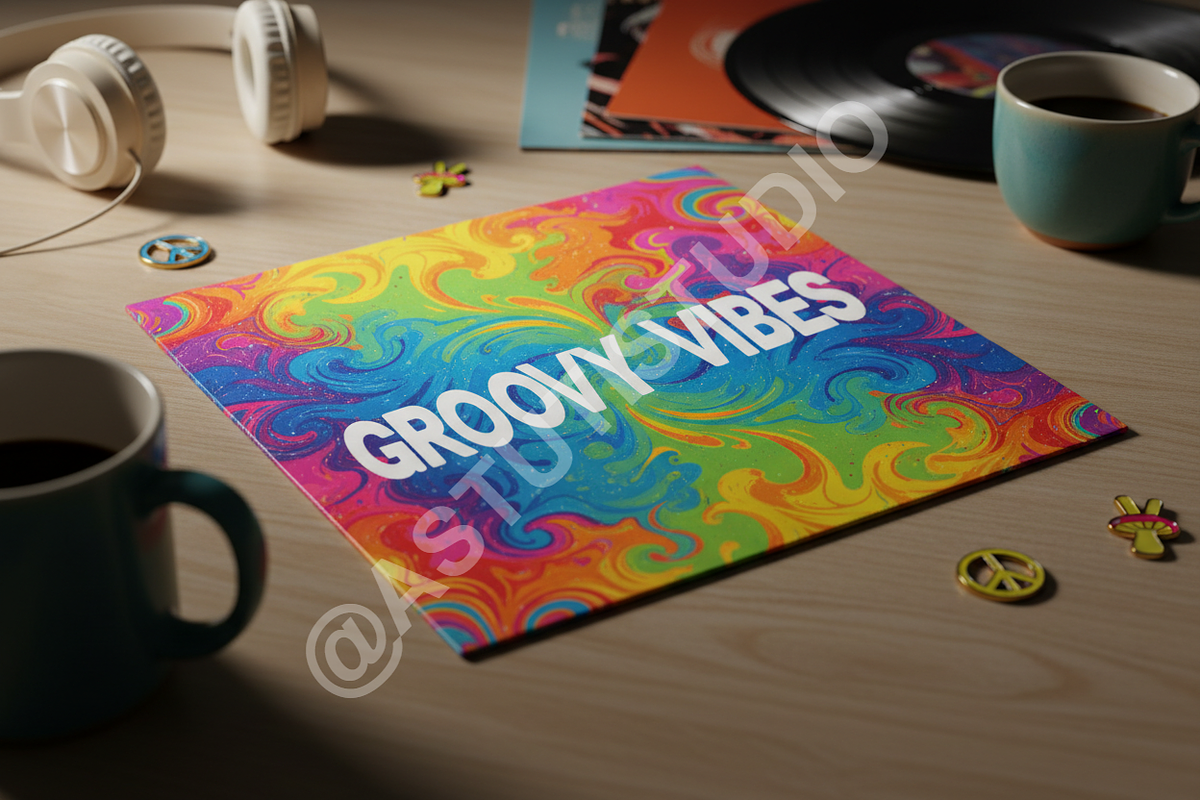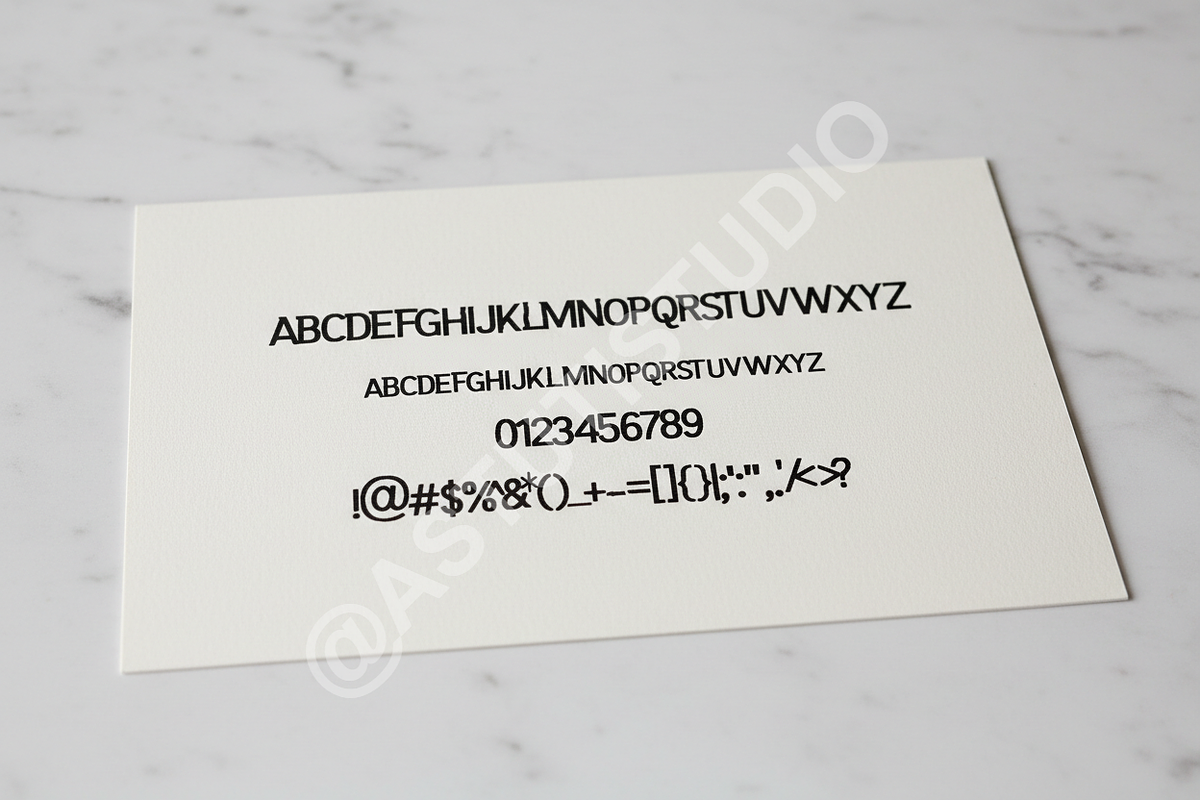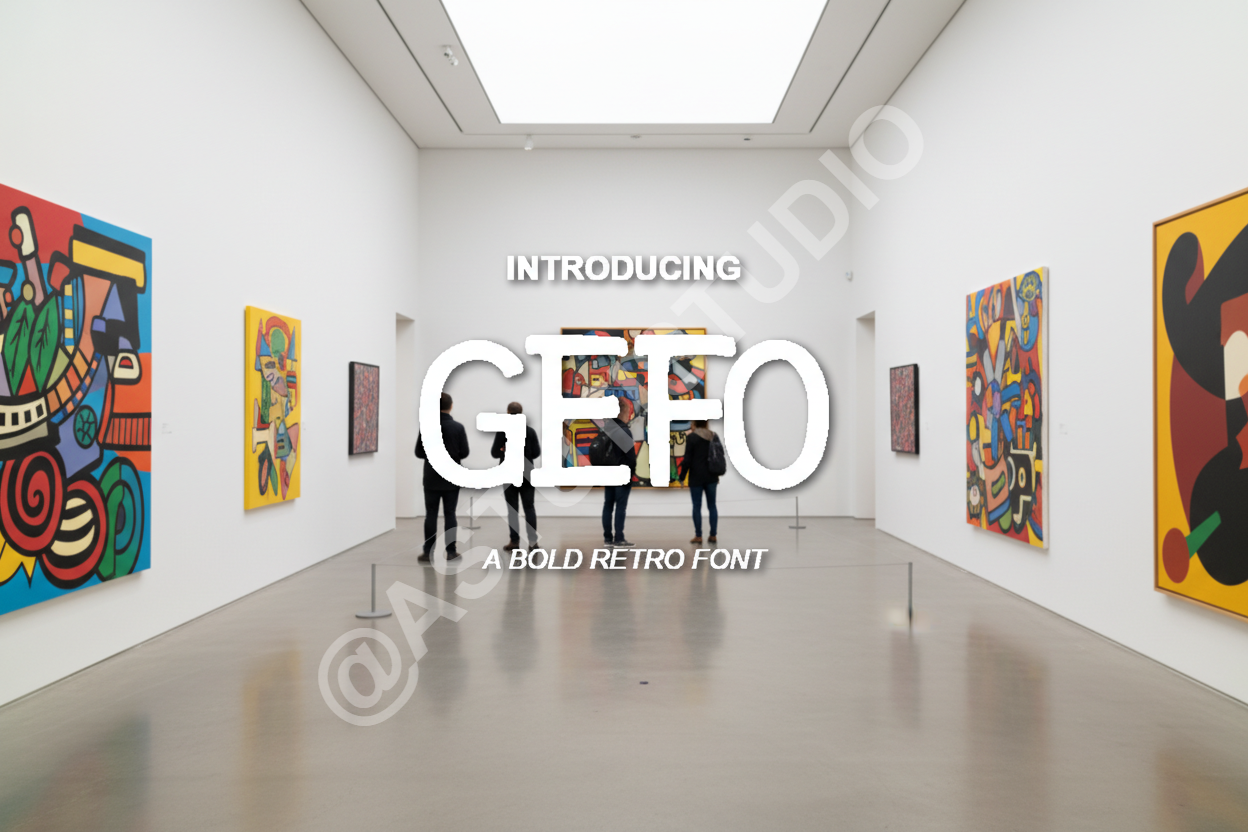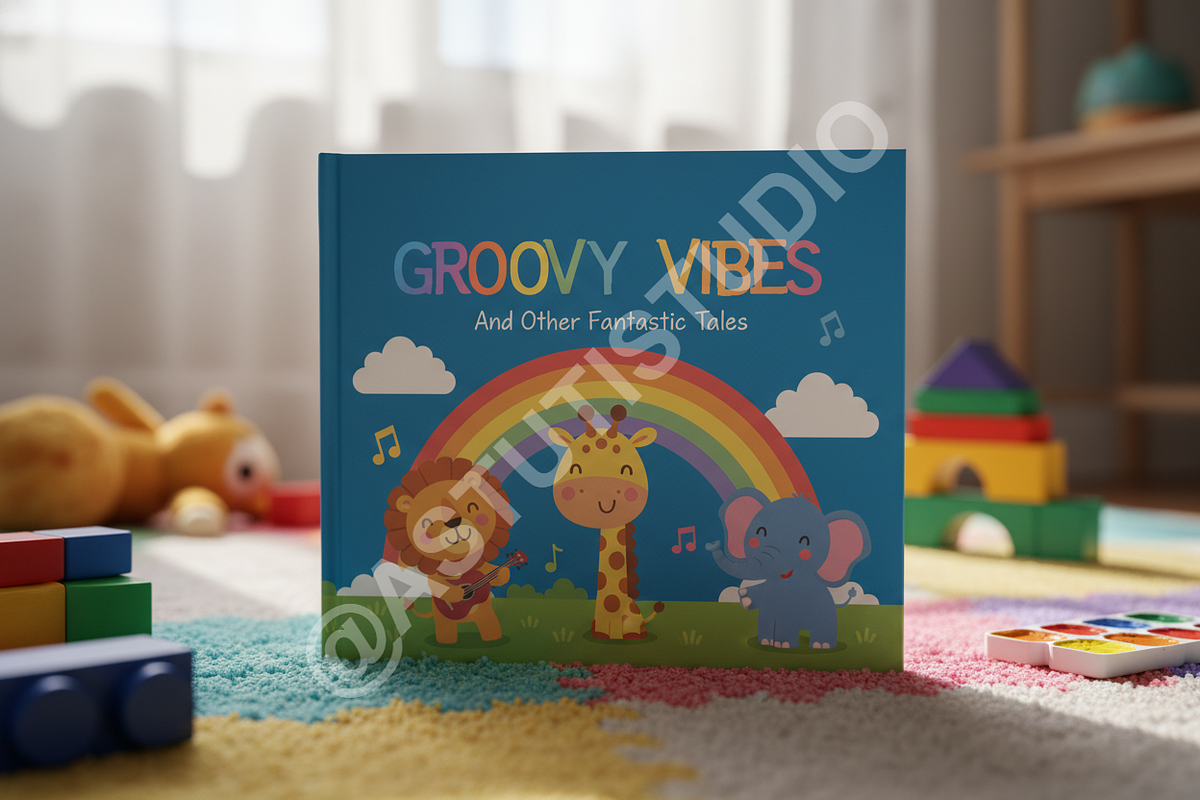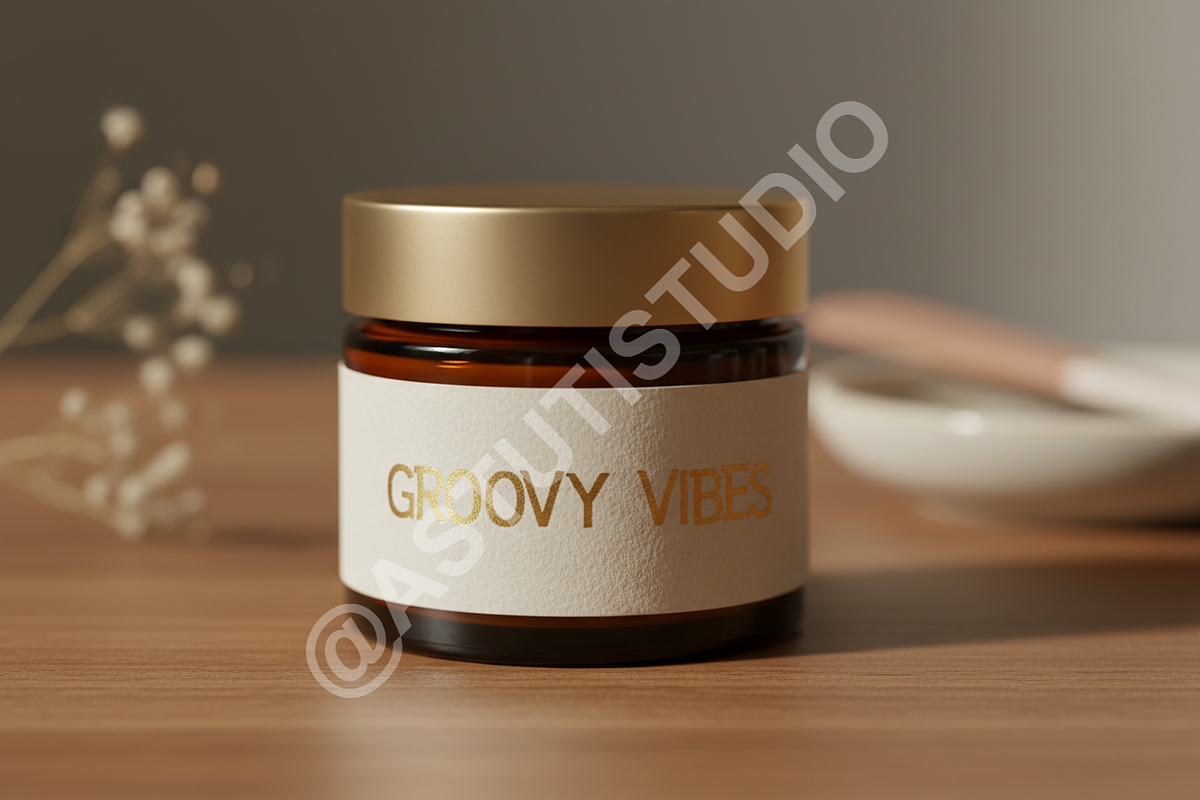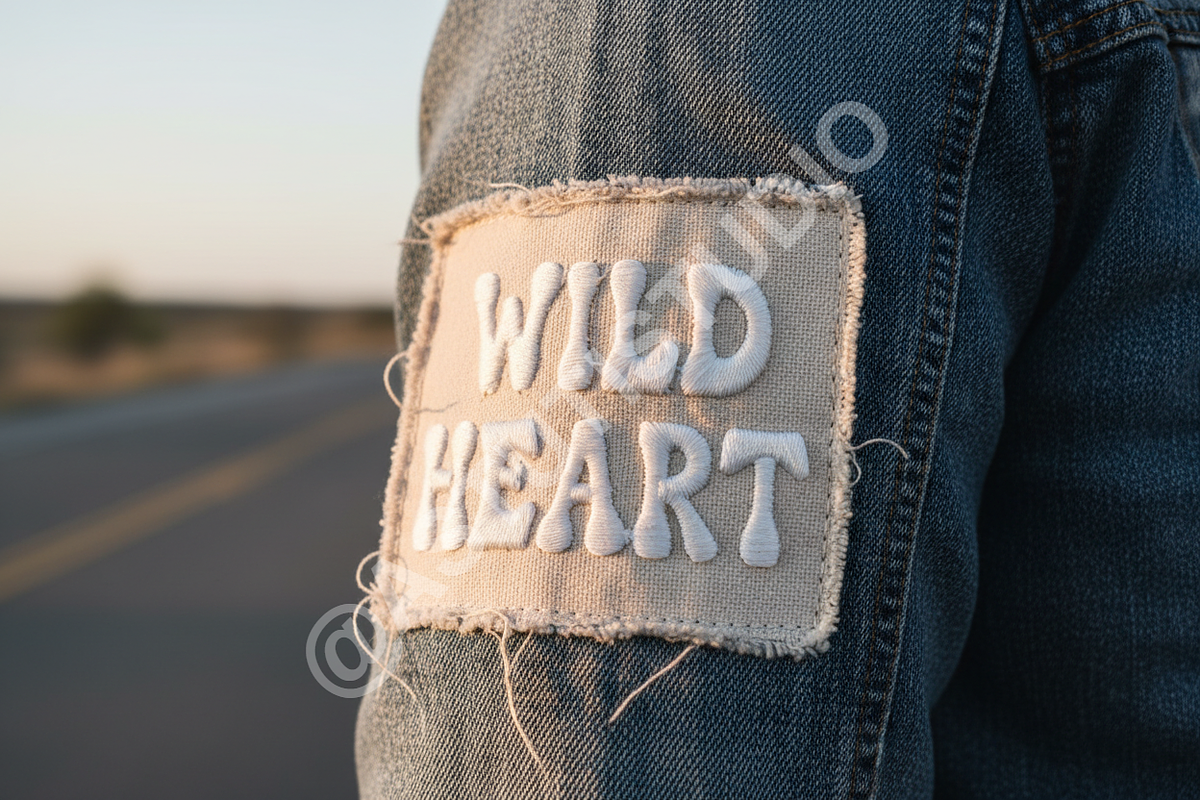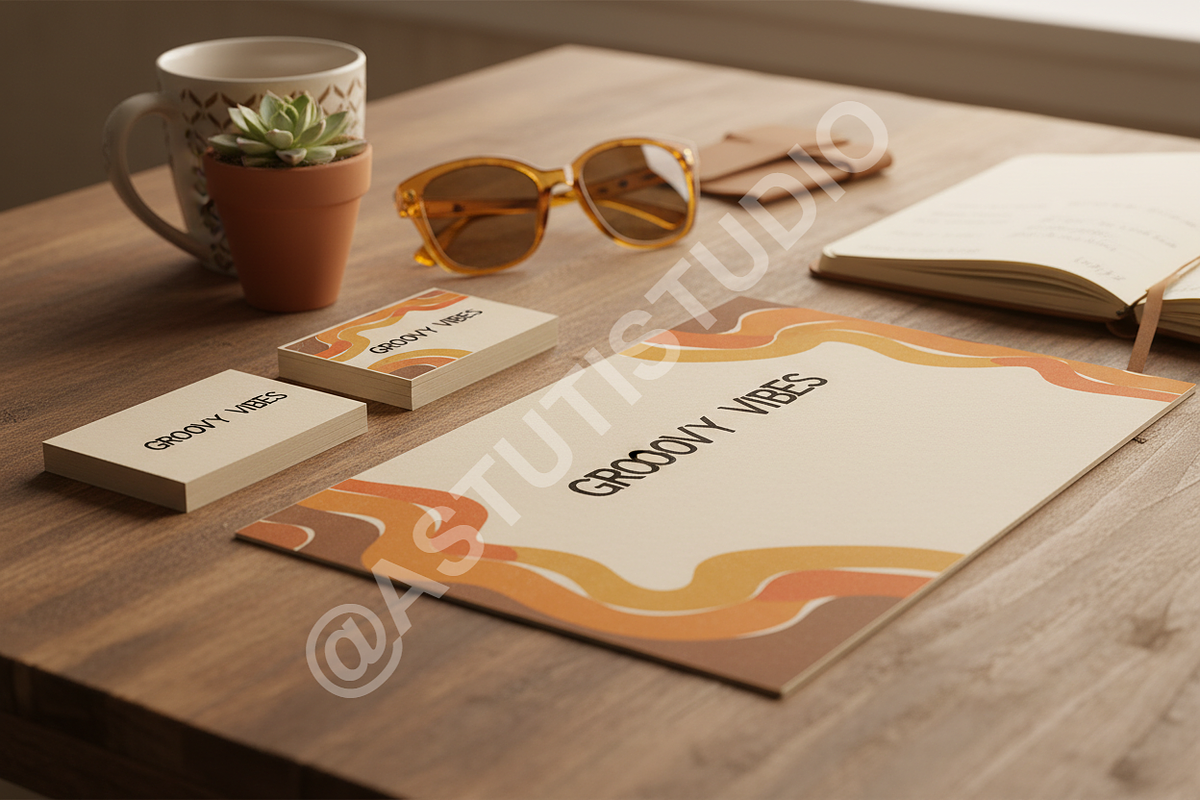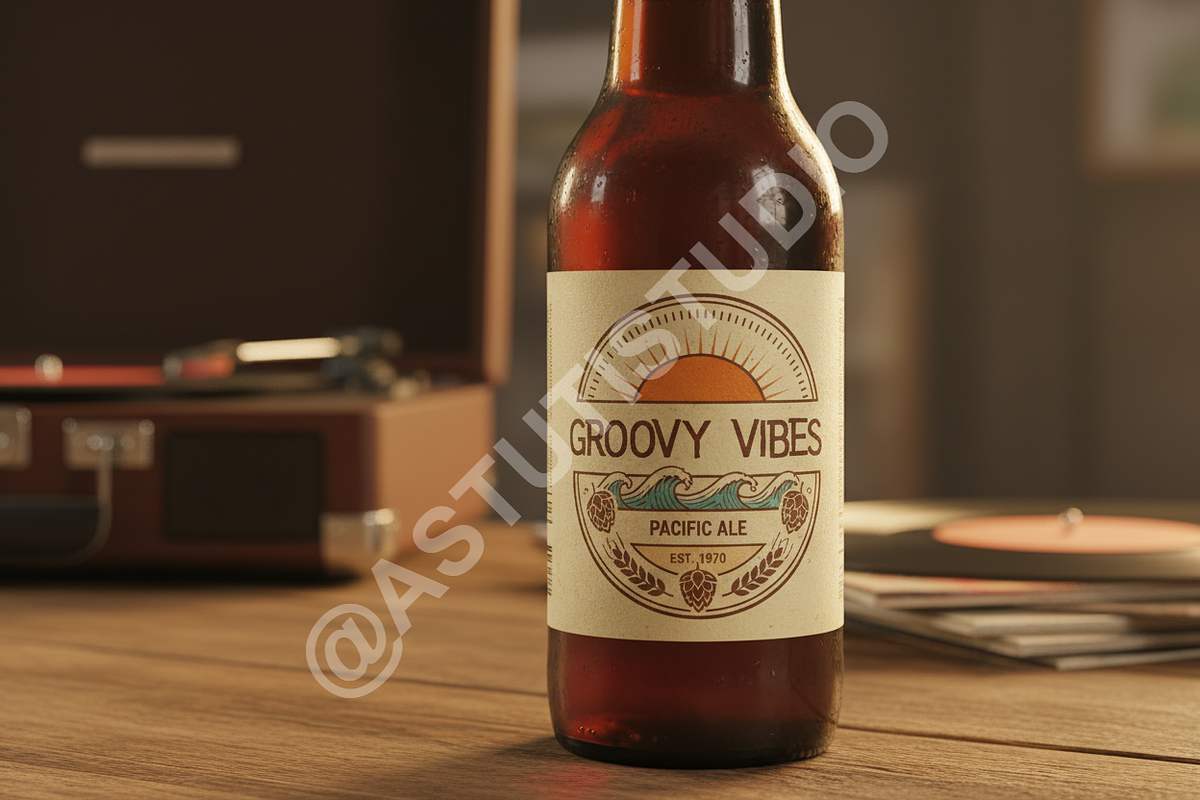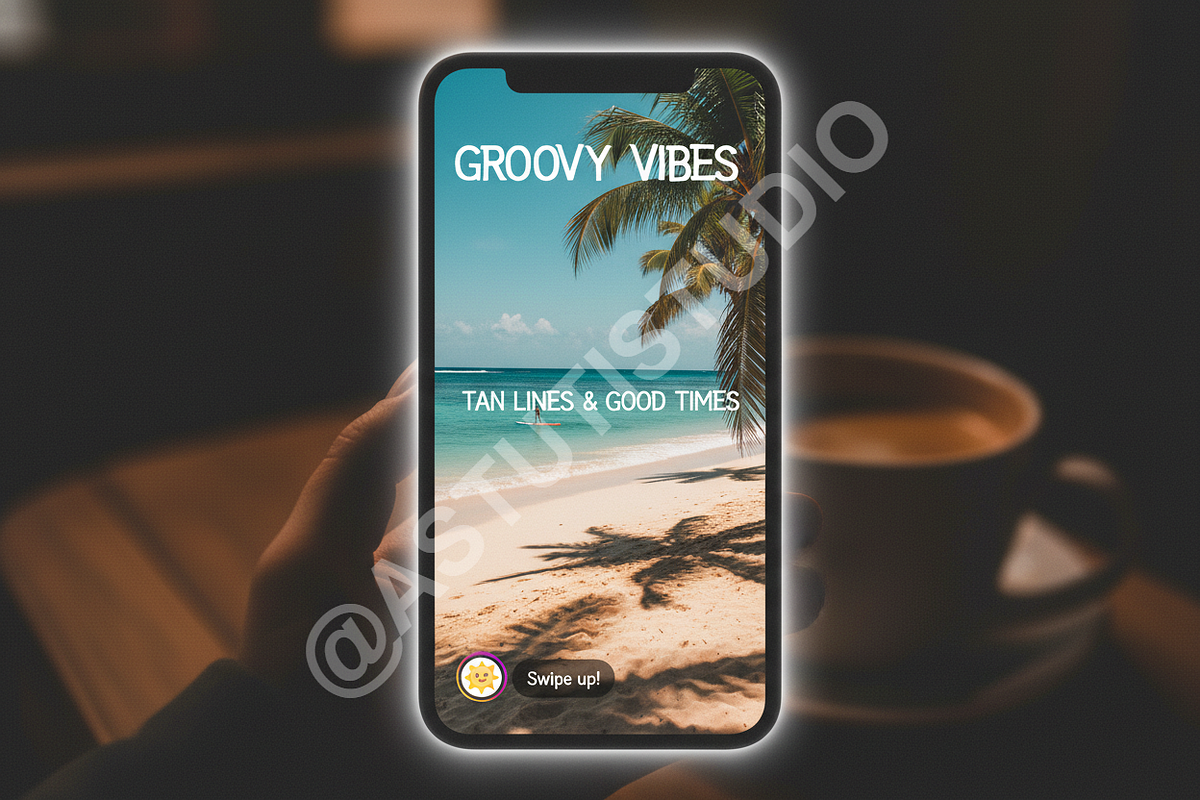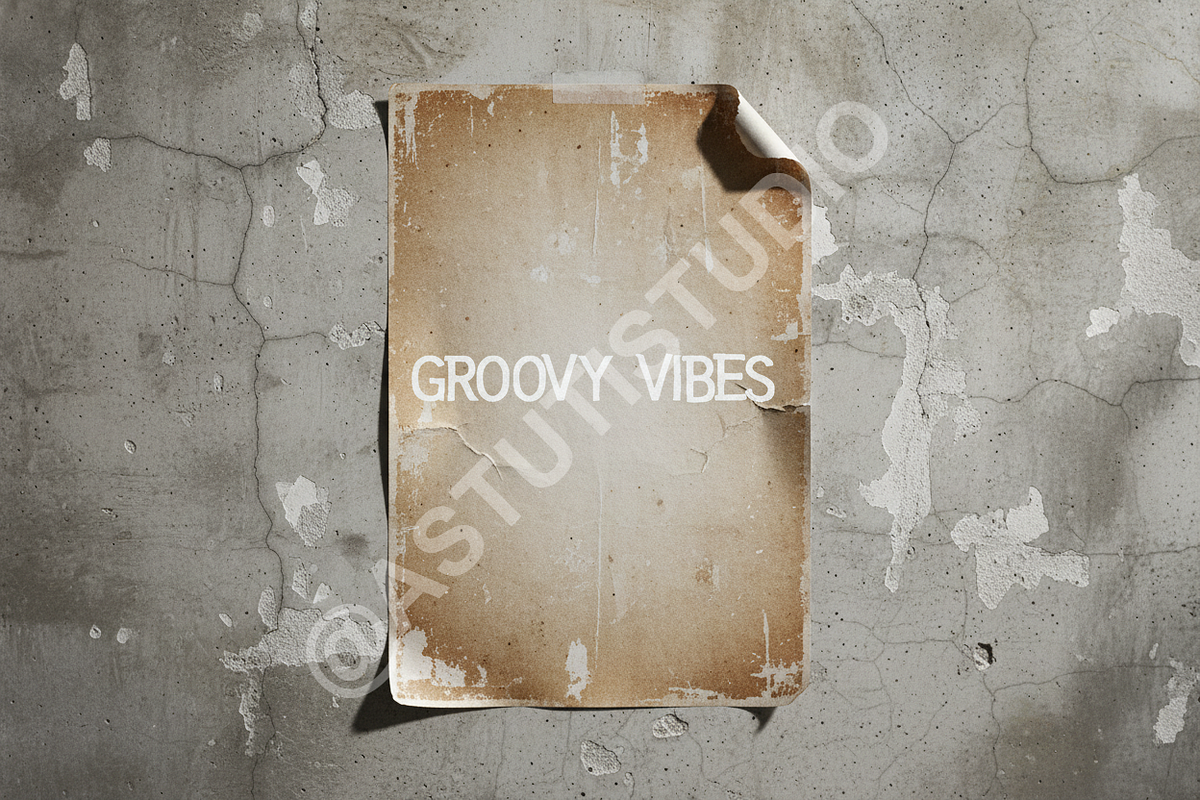
Gefo - Elegant Serif Font for Luxury
Introduction:
Gefo is an exquisite serif typeface, meticulously crafted to embody sophistication and timeless elegance. With its refined curves and balanced proportions, Gefo projects an aura of luxury, making it the perfect choice for projects demanding a touch of prestige. This premium studio product is designed to elevate your visual storytelling, infusing every word with grace and distinction.
- Versatile Design: Perfectly suited for luxury branding, high-fashion editorial layouts, distinguished logo designs, and impactful social media campaigns.
- Elegant Ligatures: Thoughtfully designed ligatures enhance fluidity and readability, adding a bespoke feel to your typography.
- Multilingual Support: Extensive character set supporting a wide array of languages, ensuring global appeal and accessibility.
- Optimized Readability: Crafted for both display and smaller text applications, maintaining clarity and charm across all mediums.